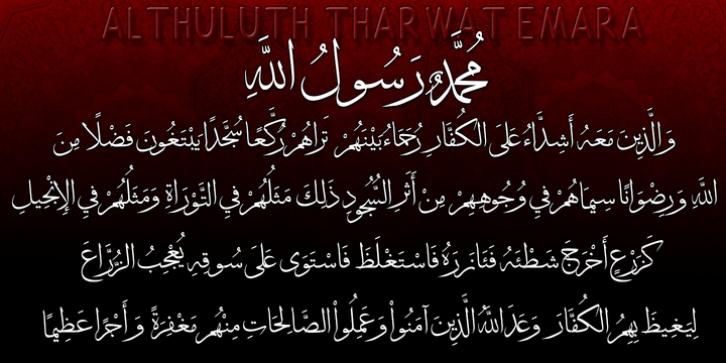
This Font is similar to the calligraphic style AL THULUTH. I added many glyphs to each other to get this feature and it become easier to graphic designer to write with Arabic AL THULUTH font without being a real calligrapher. It works beautiful in Headlines of Arabic books and photos and it is Fine Art . It also used in writing on T-shirts and clothes . This Font contains many Glyphs in Latin, Farsi, Urdu, Arabic ).